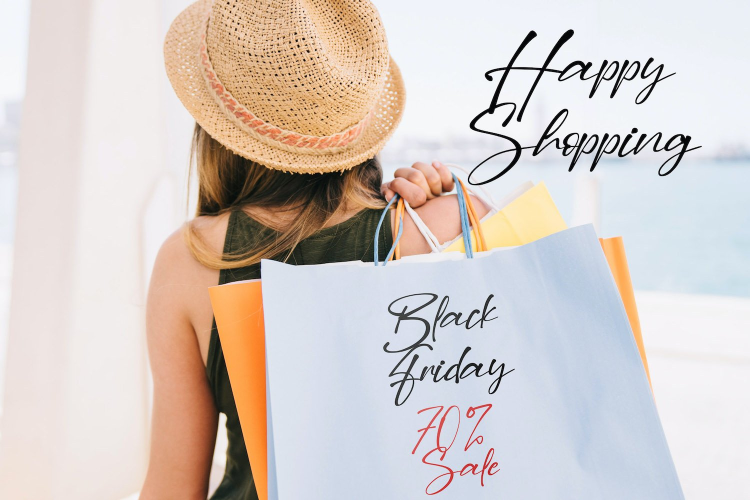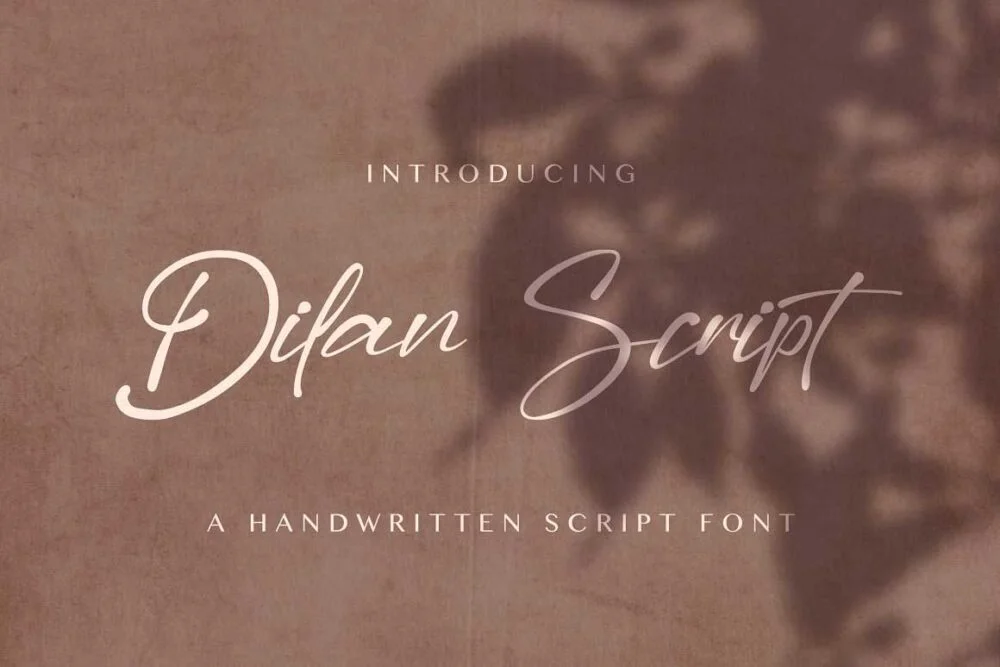
Dilan Font
Dilan Font is a delicate, elegant, and flowing handwritten font. It has beautiful and well-balanced characters and as a result, it matches a wide pool of designs. Add it to your most creative ideas and notice how it makes them come alive!
Where Dilan Font works best
A short phrase in Dilan Font carries warmth that a typeset sans cannot fake; keep the rest of the card plain.
Chalkboard-style headings in Dilan Font make a menu feel hand-made. Keep the dish descriptions in a simple face so prices stay readable.
One line of Dilan Font over a photo is enough; the script carries the tone and the caption does the work.
What kind of work does Dilan Font suit?
It sits in the Script And Handwritten group and reads as creative, elegant, handwritten, script. That makes it a candidate wherever those qualities help: headings, packaging, social graphics and brand work. Set it at the size you plan to use before deciding.